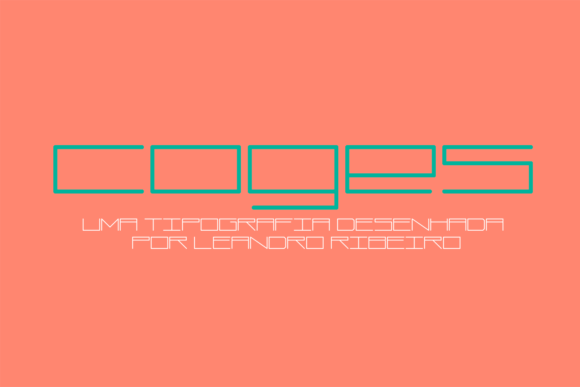
Introducing Coges, the epitome of minimalist elegance that will revolutionize your digital creations! This geometrically-sculpted display font exudes a captivating charm, boasting clean lines and contemporary curves that dance harmoniously before your eyes.
Crafted with the utmost precision by Lerima, Coges is a typographic masterpiece designed to empower you with limitless creative possibilities. Whether you seek to craft stunning logos that leave an unforgettable impression, design captivating social media graphics that ignite engagement, or elevate your website's visual appeal, Coges is your steadfast companion.
Unleash the boundless potential of Coges and witness the transformation of your designs. Its versatility knows no bounds, seamlessly adapting to a myriad of projects, from sleek and sophisticated branding to playful and eye-catching social media content.
Indulge in the beauty of Coges' crisp edges and minimalist aesthetic. Let its clean lines guide your imagination and inspire you to create designs that captivate and enchant. The world of typography awaits your exploration – seize the opportunity to make a lasting impact with Coges.
Experience the allure of Coges today and elevate your creative endeavors to new heights. Allow its geometric grace to enhance your designs, leaving a trail of visual enchantment in its wake.